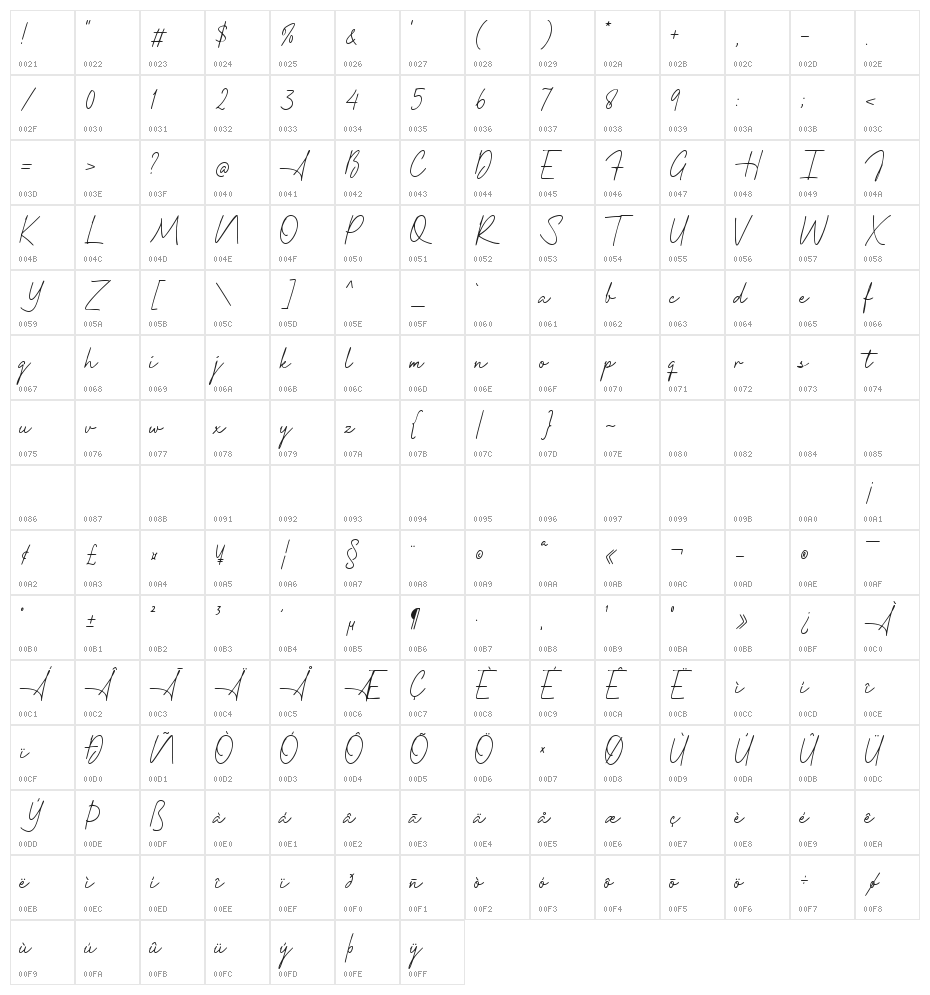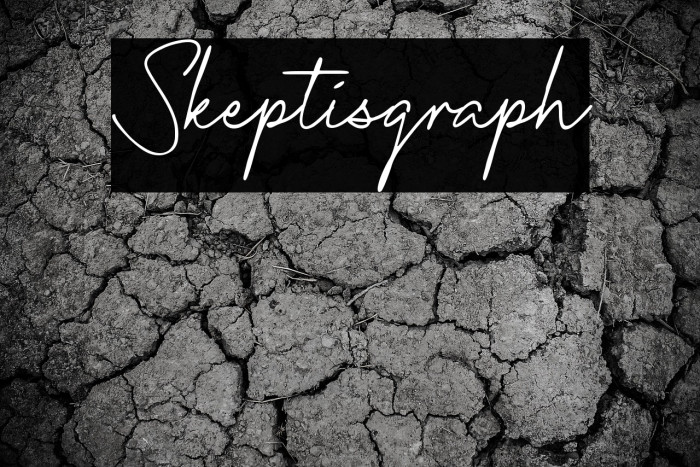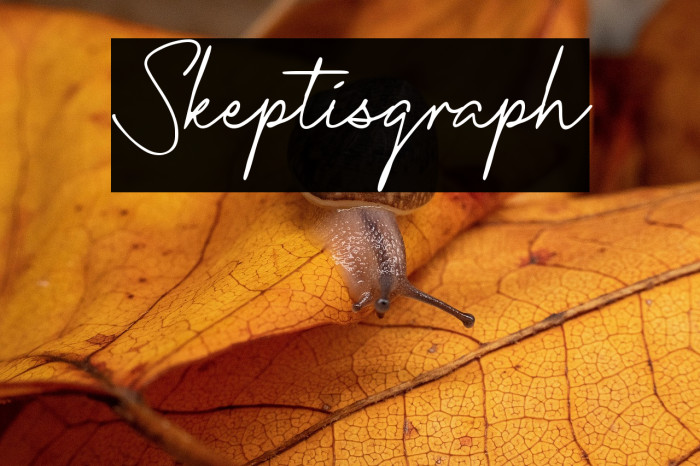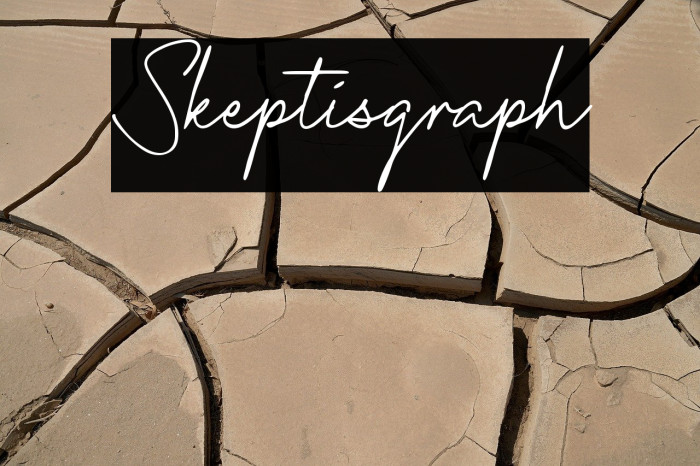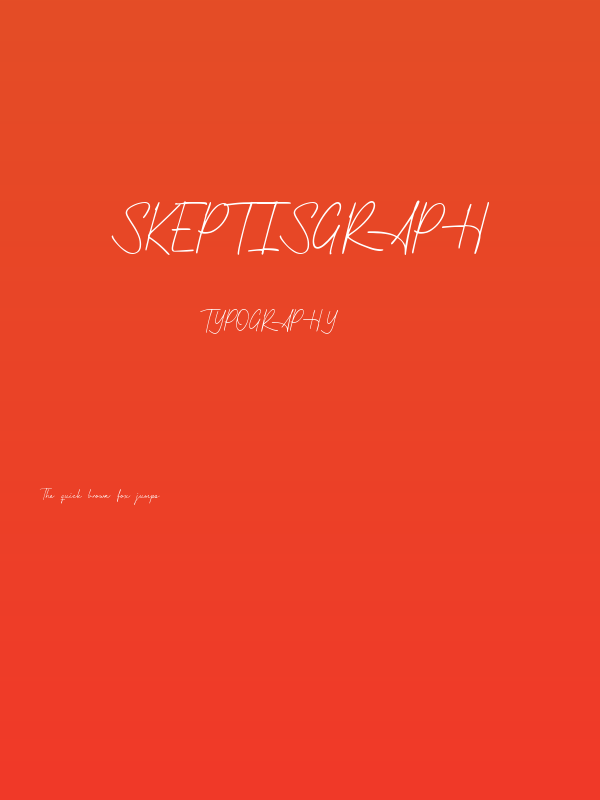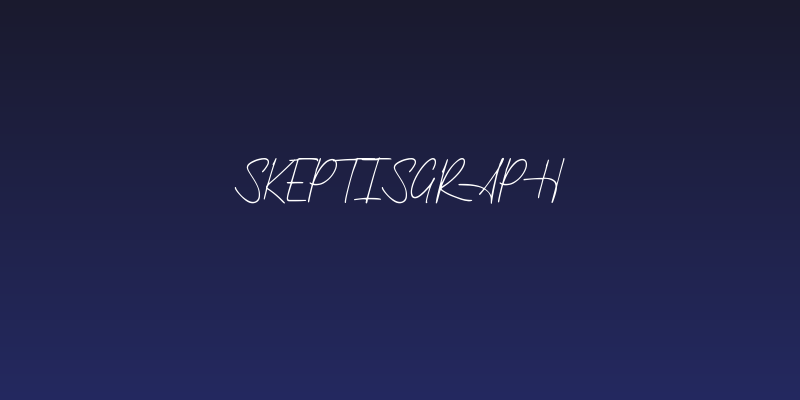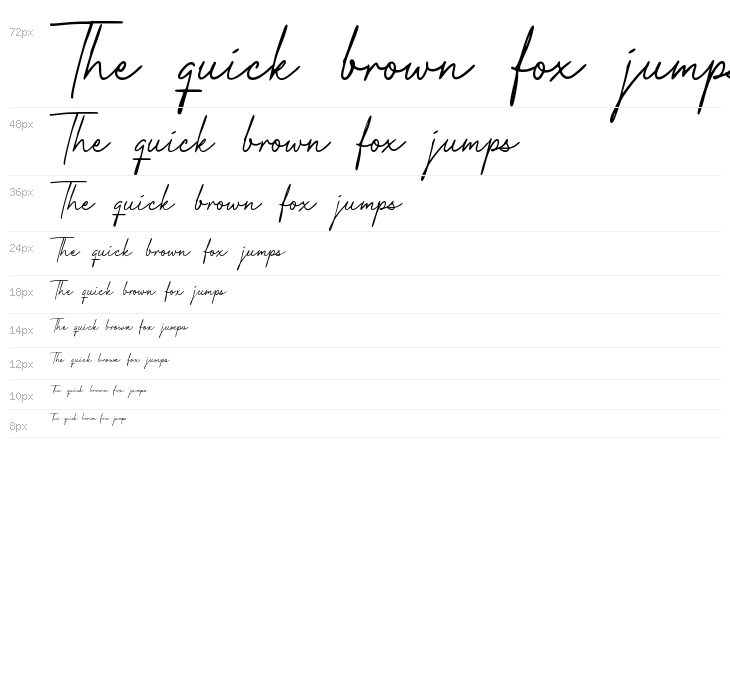
Skeptisgraph Font
Skeptisgraph Description
This font features a fluid and elegant handwritten style, characterized by its smooth, flowing lines and natural curves. The uppercase letters are tall and slightly slanted, giving a sense of movement and grace. The lowercase letters maintain a consistent style, with some letters featuring loops and flourishes that enhance the handwritten aesthetic. The numerals are clear and legible, matching the overall style of the alphabet. Special characters are included, maintaining the same fluidity and elegance. This font exudes a personal touch, reminiscent of cursive handwriting, making it suitable for projects that require a personal or artistic flair.
| Overall Style | Elegant |
| Use Case | Logos, Invitations, Artistic projects |
| Proposed Projects | Ideal for wedding invitations, personal letters, artistic projects, and branding that requires a personal touch. |